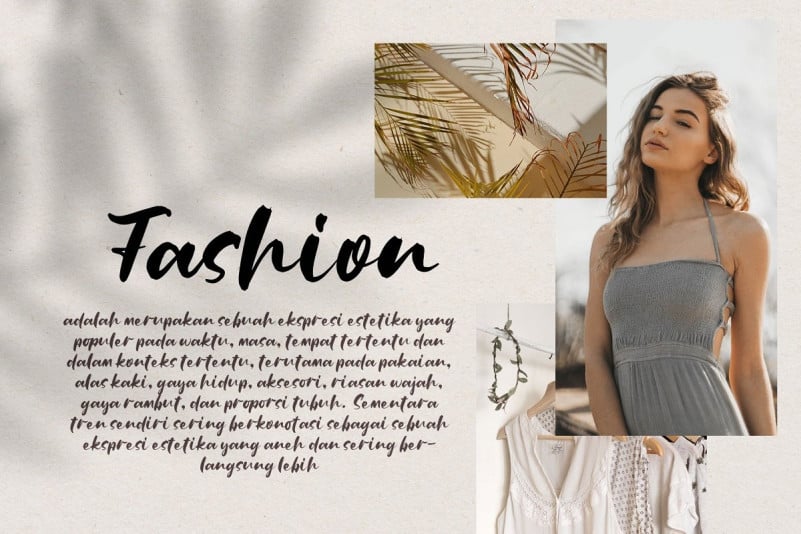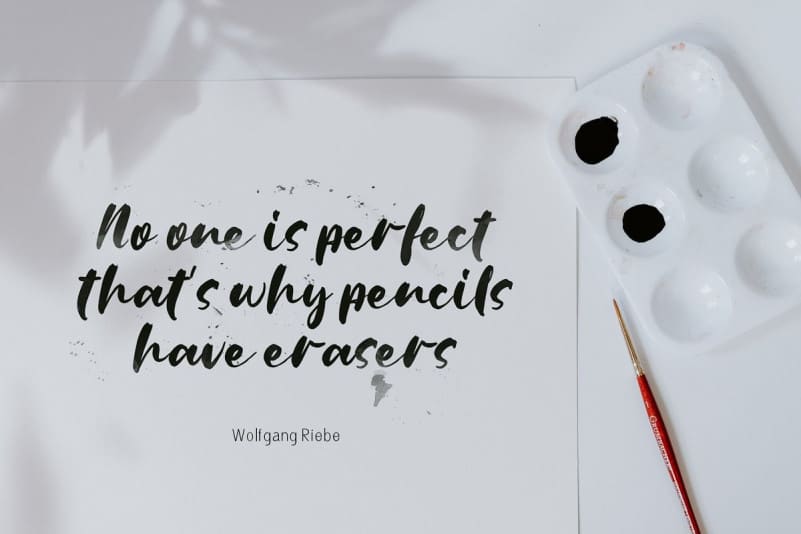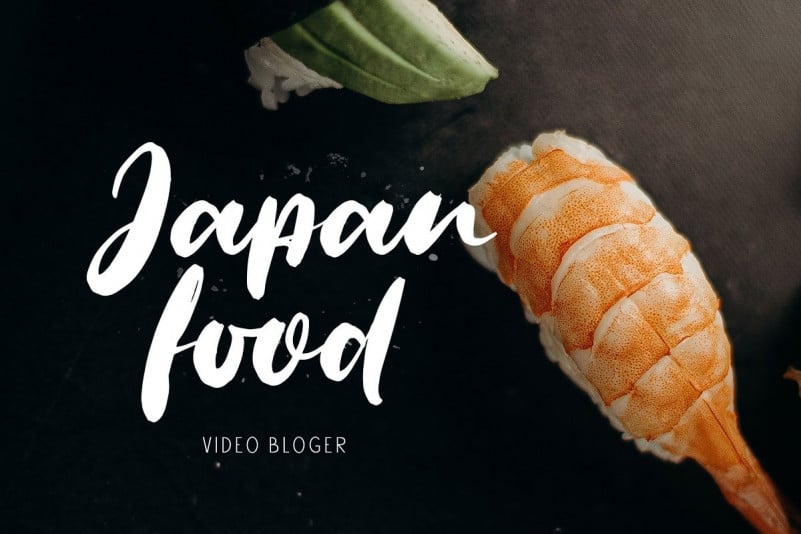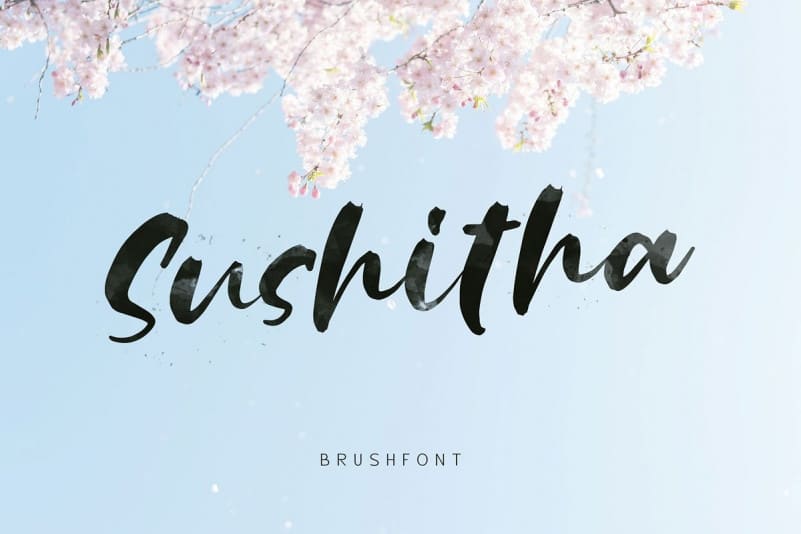
Sushitha Brush Font
Sushitha Brush Font is formed from a unique style of letters. It’s designed and shared by alit design. This font is created from brush strokes with black ink, poster color, which is made manually and naturally. Contrasting strokes from thick to thin create a unique impression and are different from other script fonts. Sushita is perfect for all design concepts with casual or non-formal themes because it carries the freedom of work. Hope you like it.